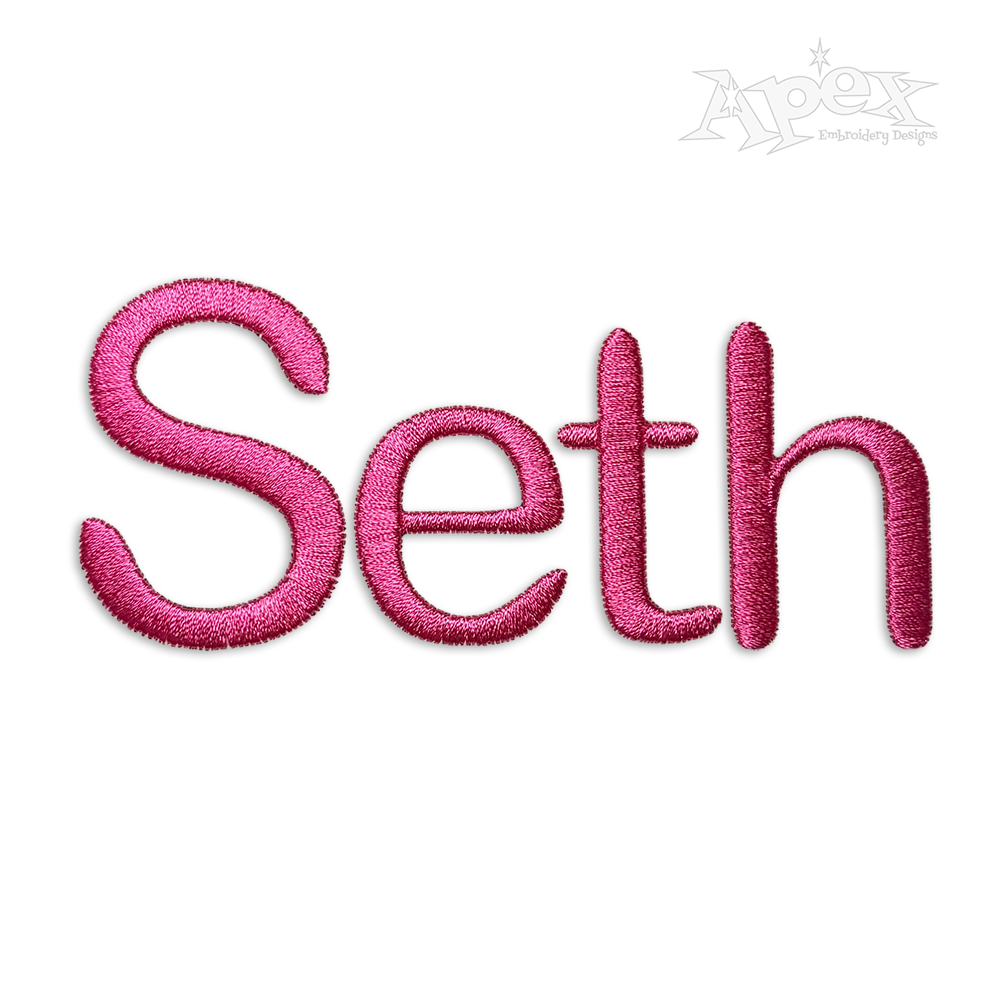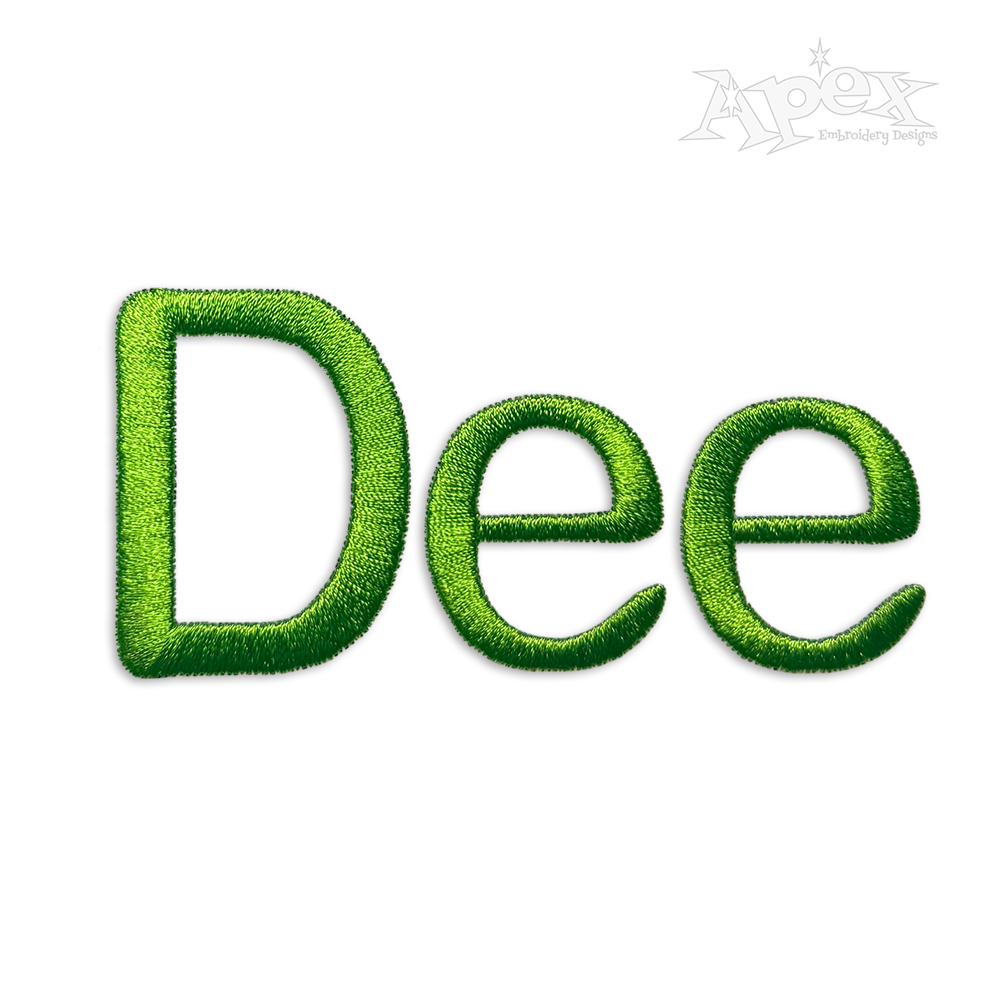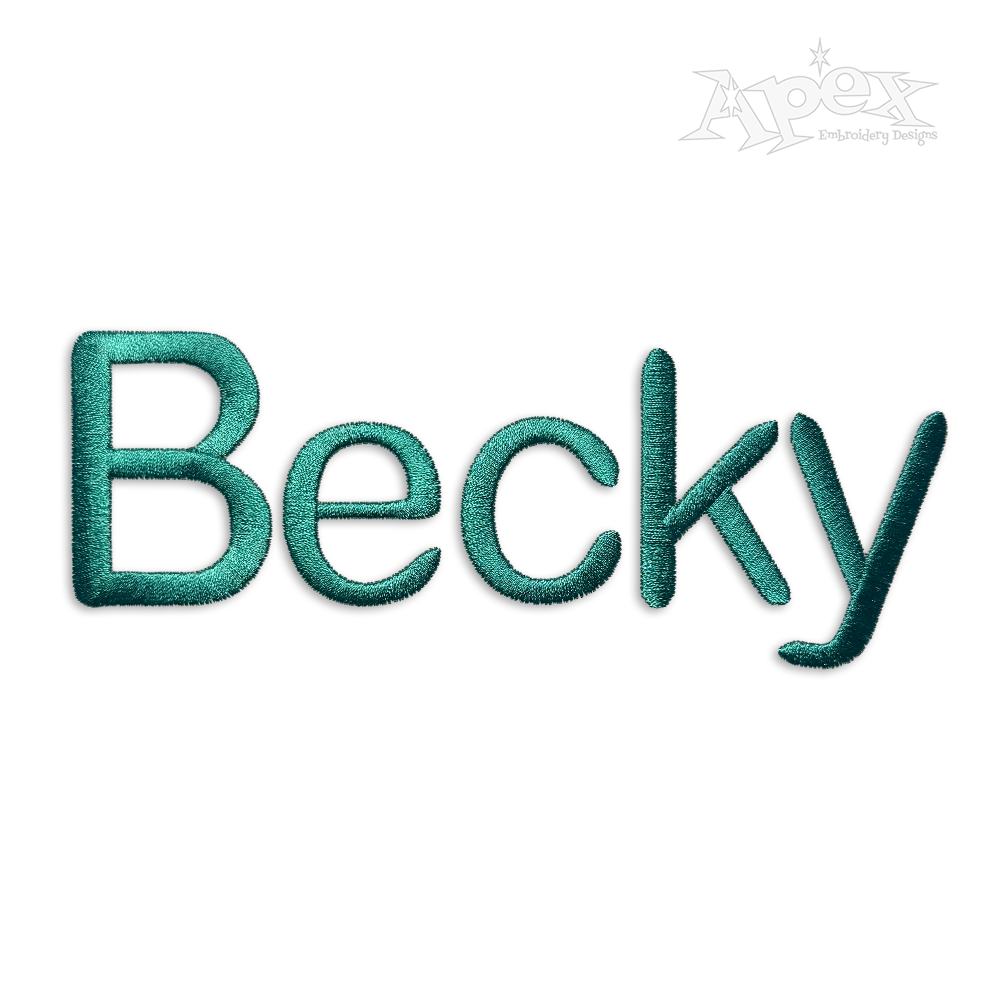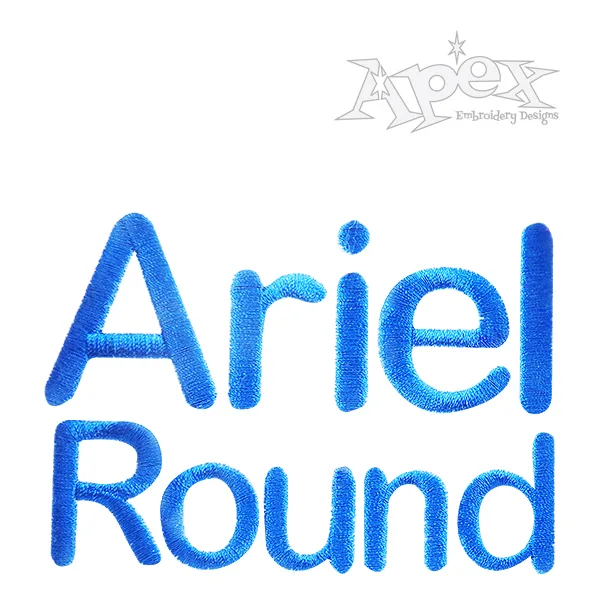
Arial Rounded Embroidery Fonts
Designed to bring approachable warmth and modern clarity to the embroidery hoop, Arial Rounded softens the sharp edges of classic geometric typography into pure tactile comfort. Digitized with deliberate care, every curve and junction is calibrated to flow with rich, pillowy satin stitches that catch the light effortlessly. The result is an understated yet striking alphabet that feels contemporary, gentle, and timeless—elevating everyday monograms and bespoke textiles into treasured artisan keepsakes.
Project Ideas for Arial Rounded Embroidery Fonts
With its welcoming, friendly cadence, Arial Rounded is exceptionally versatile across personalized gifting, heirloom nursery decor, and casual luxury:
- Heirloom Nursery Essentials: Perfect for embroidered baby blankets, personalized swaddles, infant rompers, and memory quilts where soft, non-abrasive lettering is paramount.
- Personalized Everyday Accessories: Ideal for canvas totes, daycare duffels, lunch sacks, and travel organizers requiring bold, instant readability.
- Casual & Resort Apparel: Embellish weekend sweatshirts, resort wear, custom polo collars, and laid-back denim jackets with modern, clean monograms.
- Bespoke Table & Home Accents: Stitch names and playful phrases onto linen cocktail napkins, plush bath towels, spa robes, and custom kitchen aprons.
- 0.75-Inch Letters: Subtle left-chest placements, polo plackets, shirt cuffs, collar points, napkin corners, and delicate children's wear pockets.
- 1.5-Inch Letters: Front pocket centers on canvas bags, backpack exterior pockets, hand towel bands, and cosmetic pouches.
- 2.0-Inch Letters: Bold center-chest statements on children's sweaters, heirloom blanket corner diagonals, bath sheets, and robe back panels.
Arial Rounded Embroidery Fonts Craft & Letterform Details
In standard typography, rounded sans-serifs can easily lose their definition when translated into thread. For this collection, we meticulously engineered the stitch density and pull compensation along each stem and terminal. Rather than blunt stops, the ends of every letter curve gracefully, guiding needle movement along natural contours so satin stitch columns remain remarkably plump and uniform. The lowercase ascenders and descenders balance harmoniously with bold capitals, maintaining flawless legibility even at smaller scale. Whether stitched in luminous rayon or matte cotton, the letters deliver smooth transitions, crisp negative space, and a clean, tactile relief that sits beautifully atop plush and woven fabrics alike.